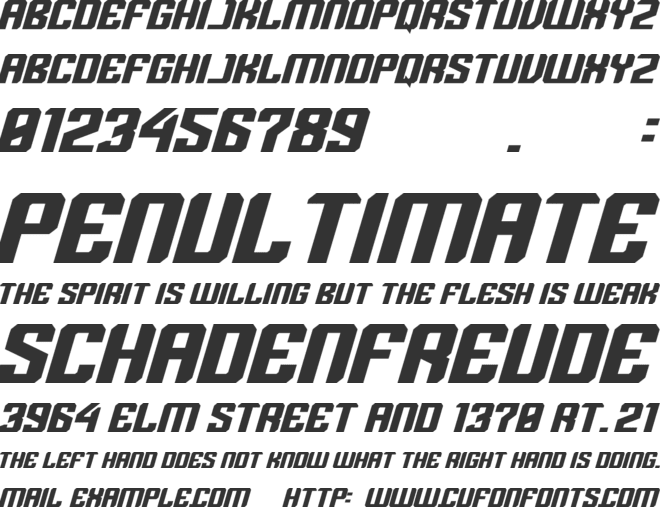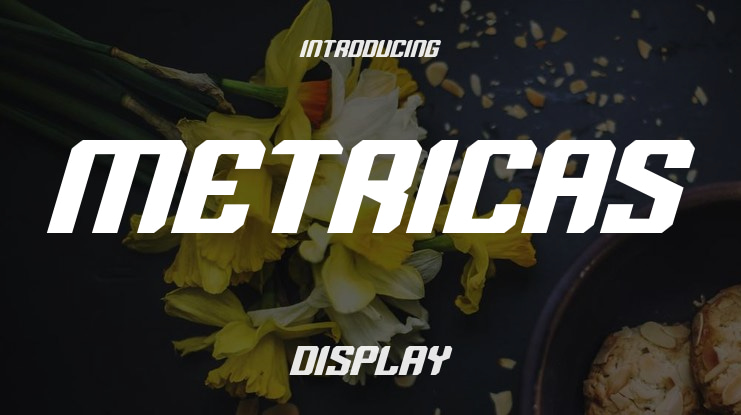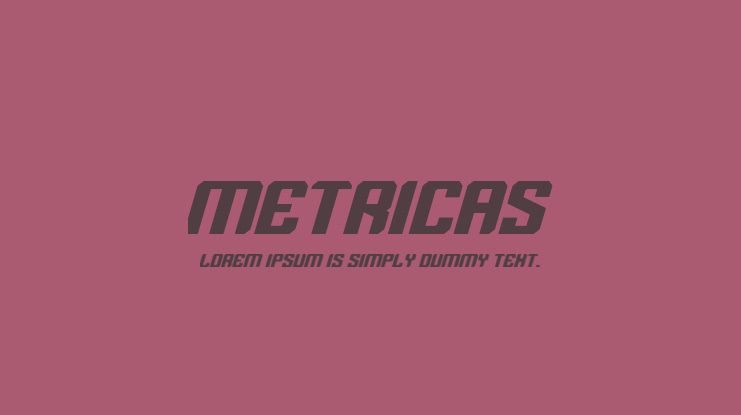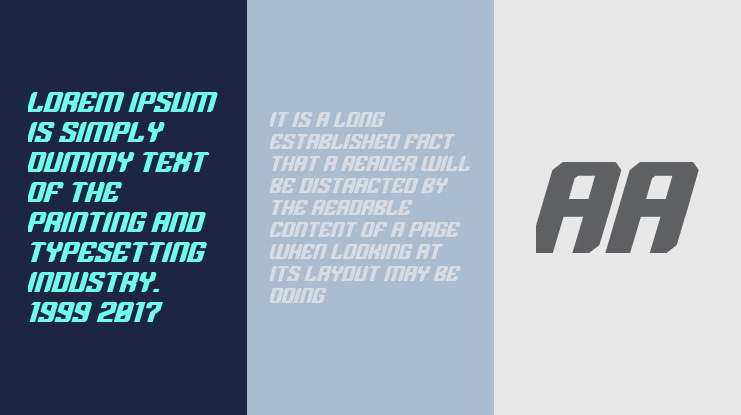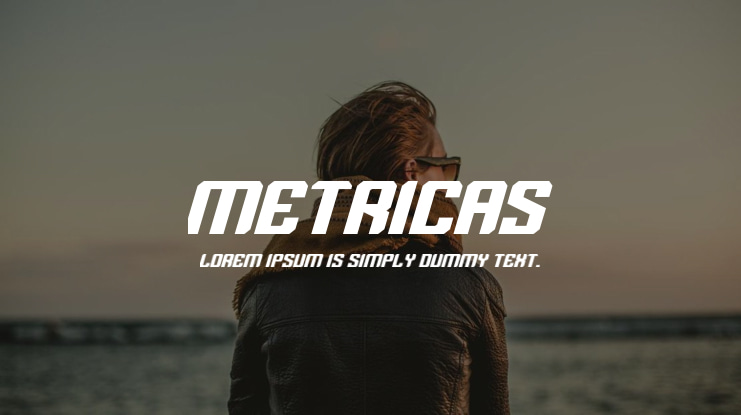
Metricas is a font that embodies elegance, simplicity, and modernity. It is perfectly suited for advertising purposes, sublimation, t-shirts, racing, and entertainment elements.